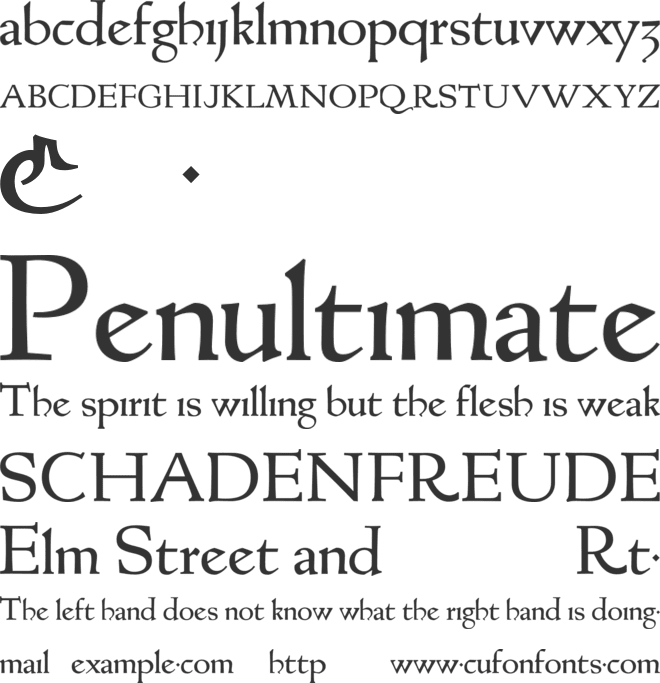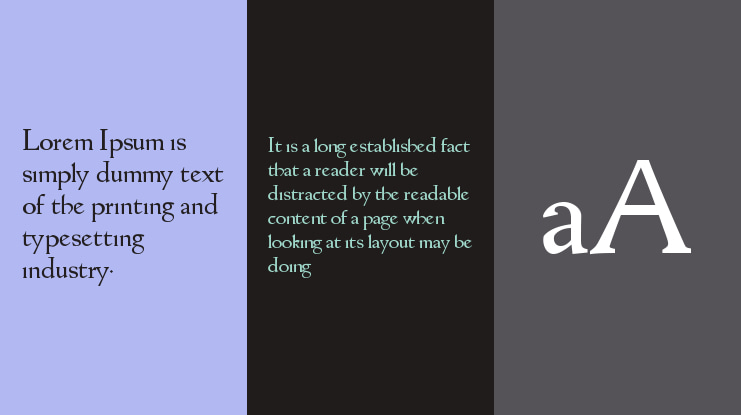
Rot Font
Alexis Faudot, Rafael Ribas
Rot 102R, Proto-Roman first used in Rome by Adam Rot for Dominicus de Sancto Geminianoâs Lecturae super secunda parte sexti Decretalium in 1471 and used until 1474.Type design workshop at HBK Saar and Bibliothèque municipale de Metz, Sarrebrücken, December 2016.Source: Lecturae super secunda parte sexti Decretalium, Dominicus de Sancto Geminiano, 1471.Workshop participants: Arthur Francietta, Isia Yurovsky, Montasser Drissi, Miklos Ferencz, Chiara Schwarz, Claudia Romero, Echo Hui, Fabienne Lentes, Keke Shen, Max Holl, Sebastian Knöbber, Shijung Wu.Font designed and produced by Alexis Faudot and Rafael Ribas, directed by Jérôme Knebusch, Atelier National de Recherche Typographique (ANRT), Nancy.Copyright (c) 2019 ANRT. All rights reserved.